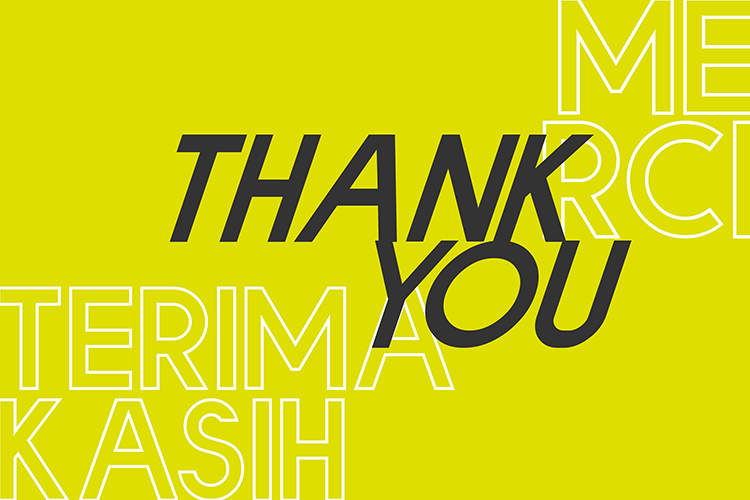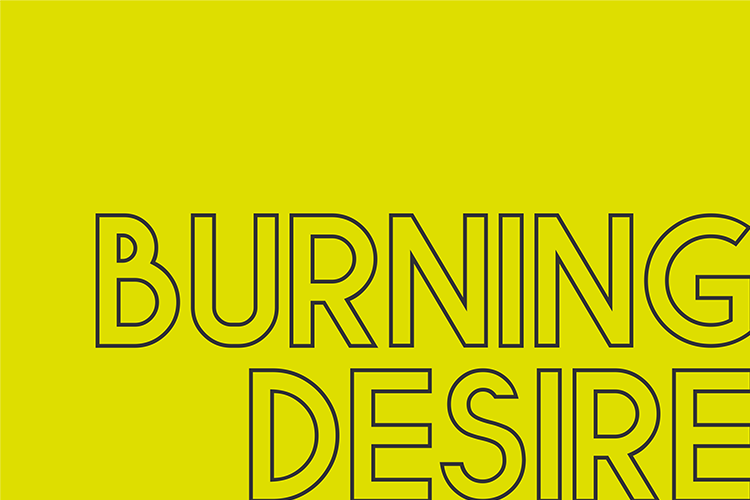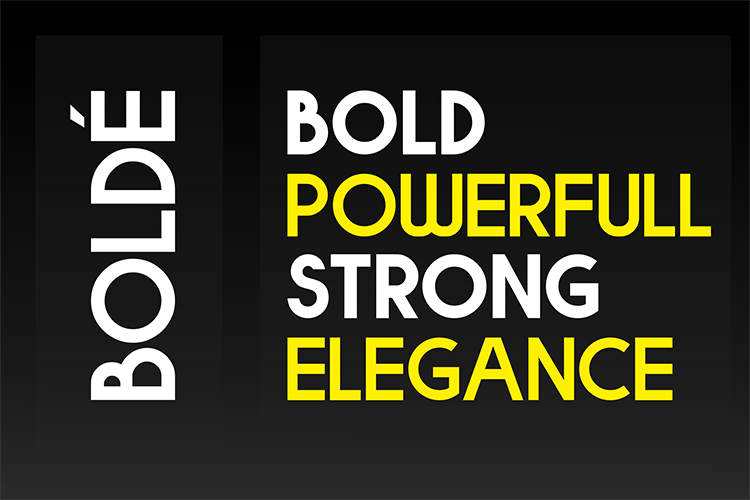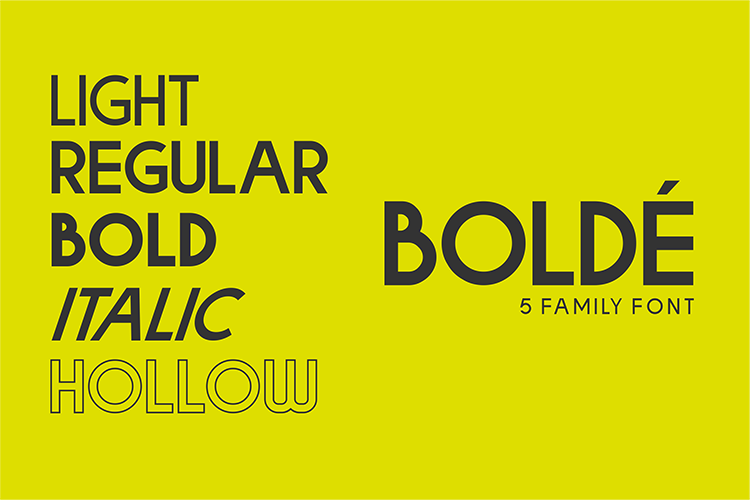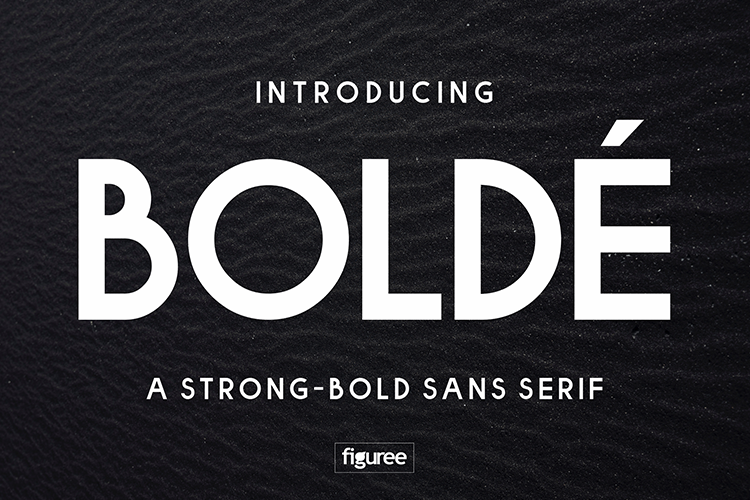
Bolde Sans Typeface
Hello Guys! This is a family of Sans Serif fonts designed with a modern and vintage feel. Introducing Bolde Font Family. Bolde is a powerfull sans serif font family with modern touches. A balance of hard lines and smooth curve makes them able to stand on their own dynamically. Bolde works great in any branding, logos, magazines, films. The different styles give you full range to explore a whole host of applications.